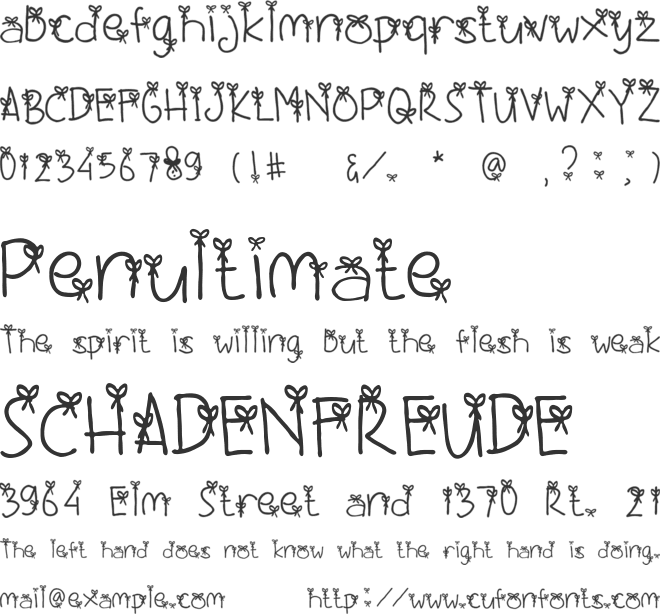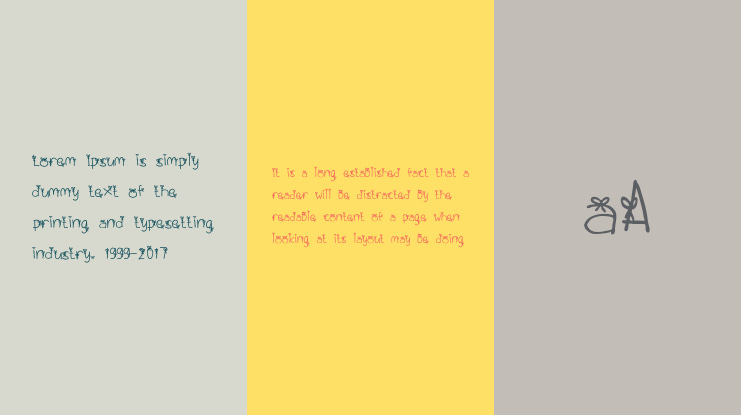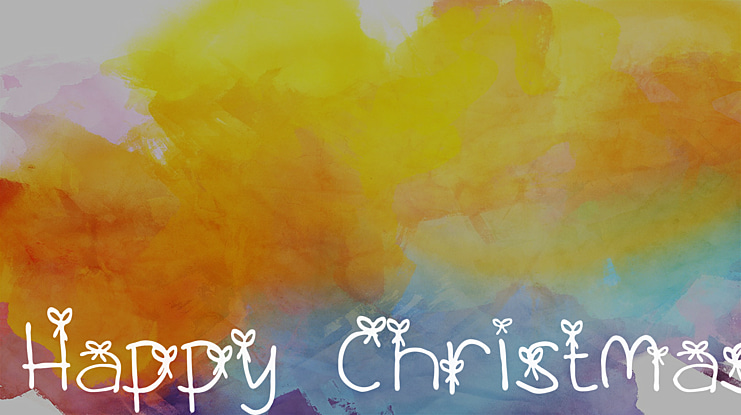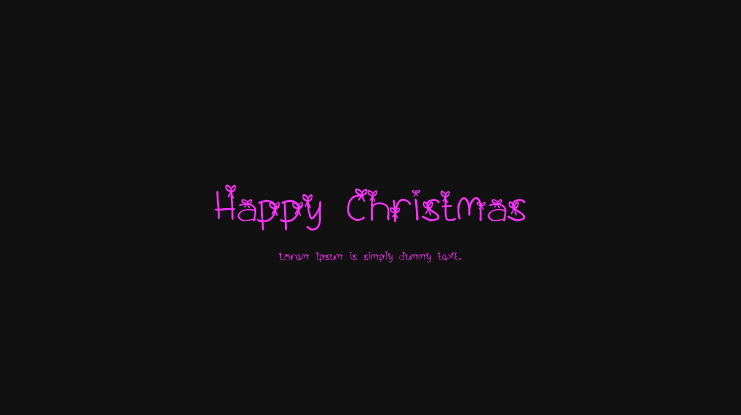
Happy Christmas Font
Happy Christmas is a sweet and festive display font. It is ideal for holiday-themed greeting cards and for any crafting project that requires a cute touch.